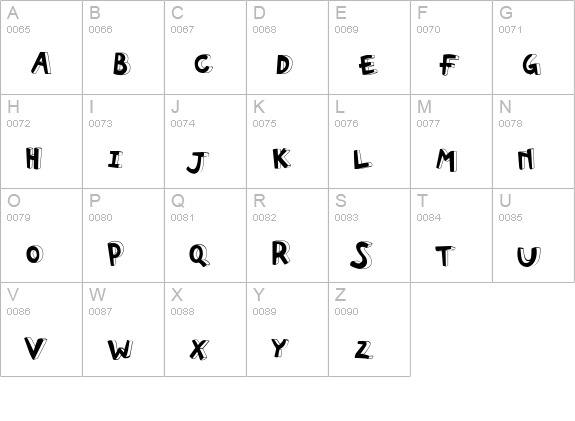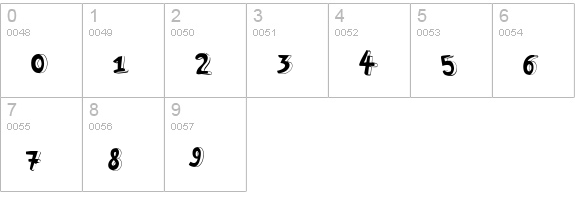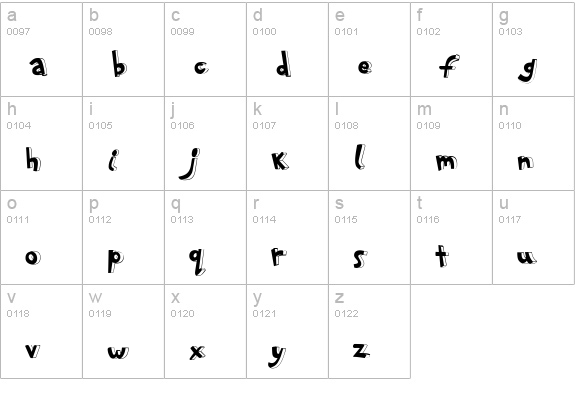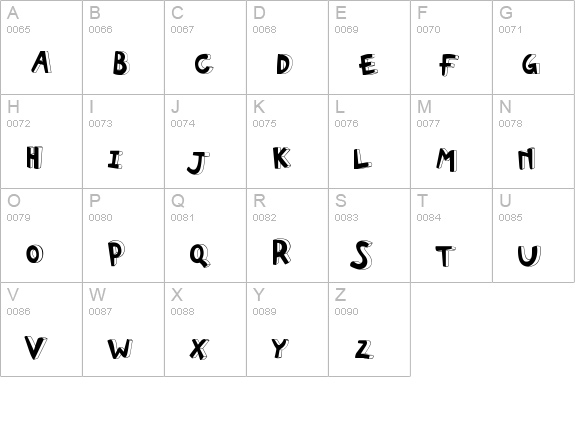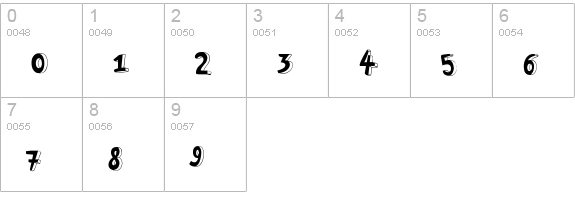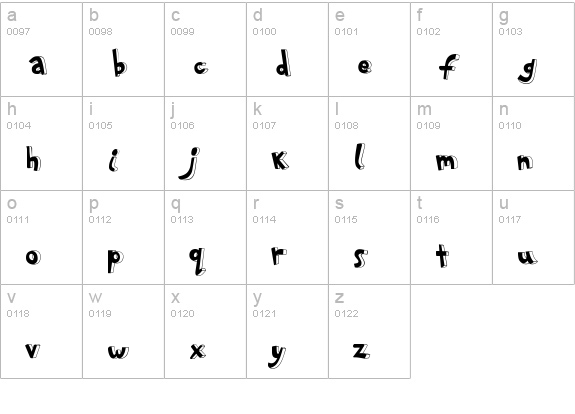
PFPlayskoolPro-3D Font Details
Introducing the PFPlayskoolPro-3D font, a fun and playful typeface designed to bring a vibrant touch to your projects. With its three-dimensional effect, this font adds depth and character to any design, making it perfect for children's books, posters, and playful branding. The PFPlayskoolPro-3D font is not only visually appealing but also incredibly versatile, allowing you to create eye-catching designs with ease. Whether you're looking to add a whimsical touch to your project or want to make a bold statement, this font has got you covered. Best of all, the PFPlayskoolPro-3D font is available for free download at FontsMarket.com. So why wait? Add a touch of fun and creativity to your designs today with this playful and dynamic font.